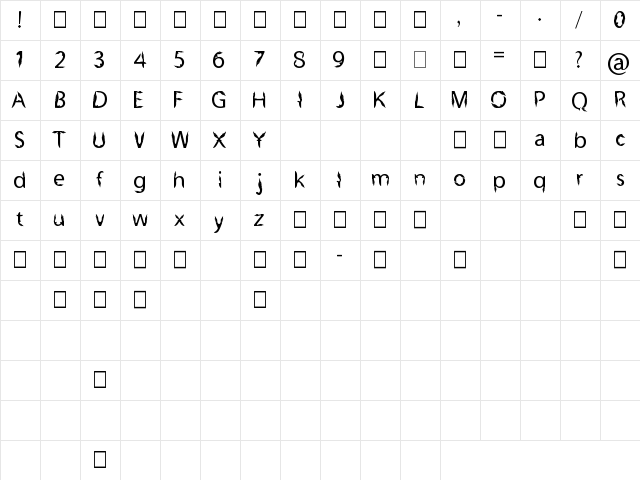
Kujang Ciung Basyri Regular
Design Context for Kujang Ciung Basyri
Kujang Ciung Basyri is a composed and adaptable typeface that performs quietly and consistently across a wide range of design contexts.